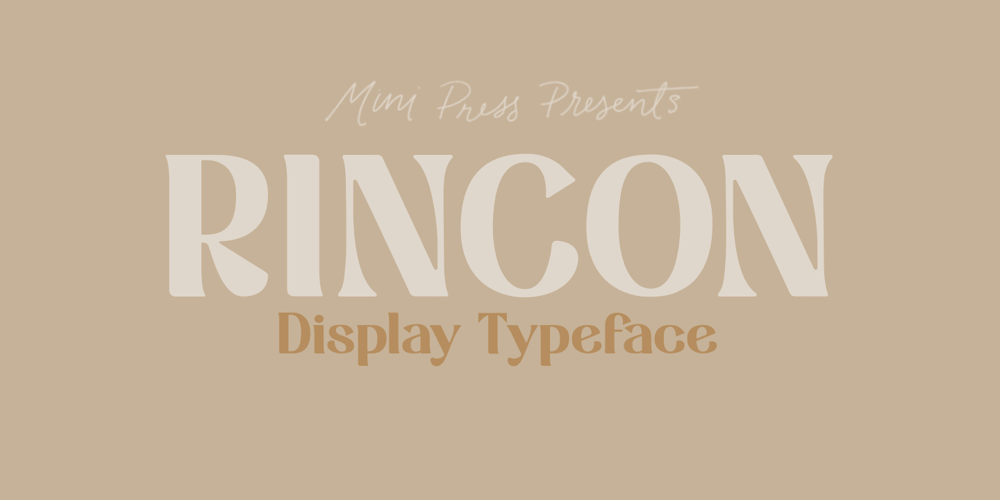
Rincon Font Family was designed by Rachel Kick and published by Rachel Kick. Rincon contains 1 styles and family package options. Rincon is a serif font with 201 glyphs including ligatures and alternatives. It was designed by Rachel Kick in Los Angeles, California. Inspired by beautiful serif while maintaining a friendly and approachable feel, Rincon is perfect for branding, display, or marketing.Rincon has the ability to hold it’s own as a single word headline, or in a paragraph form. It also works well with simple sans serif or script font compliments. The ligatures increase its legibility and adjust each character to work perfectly with the character next to it.